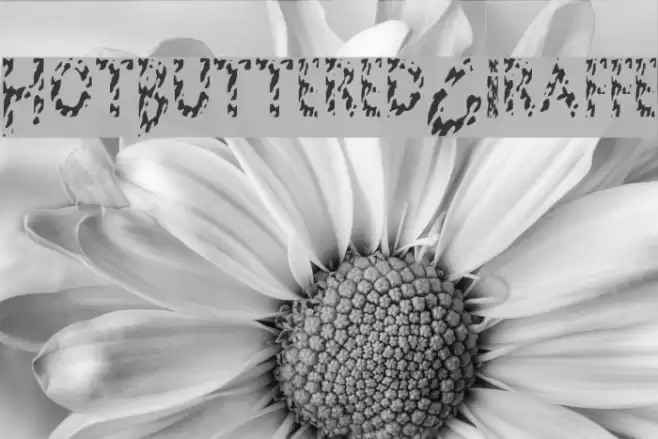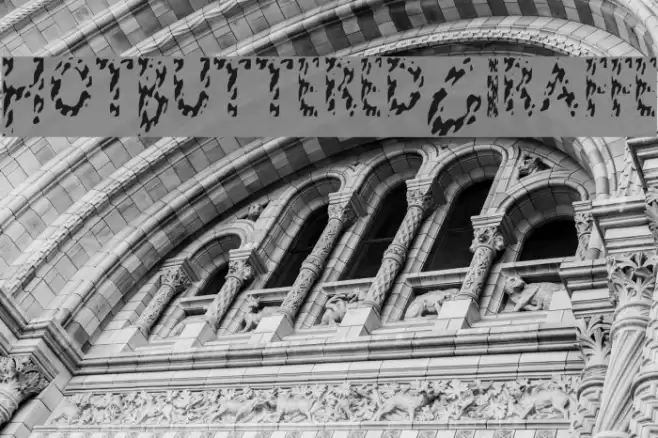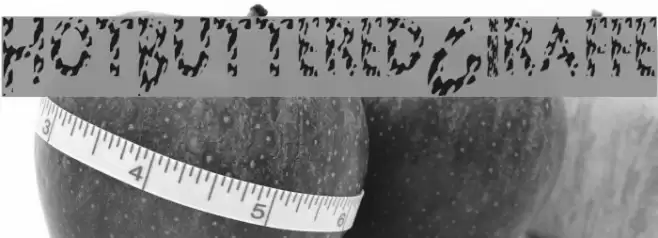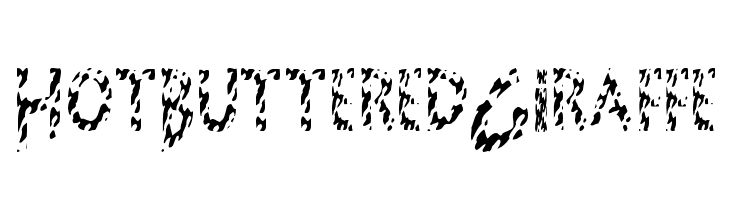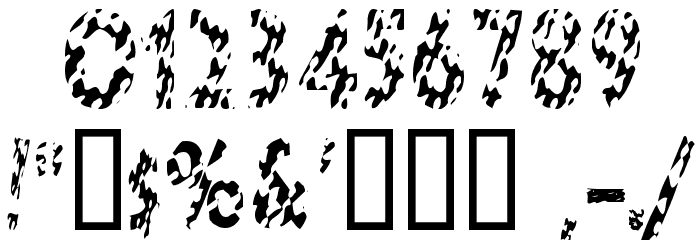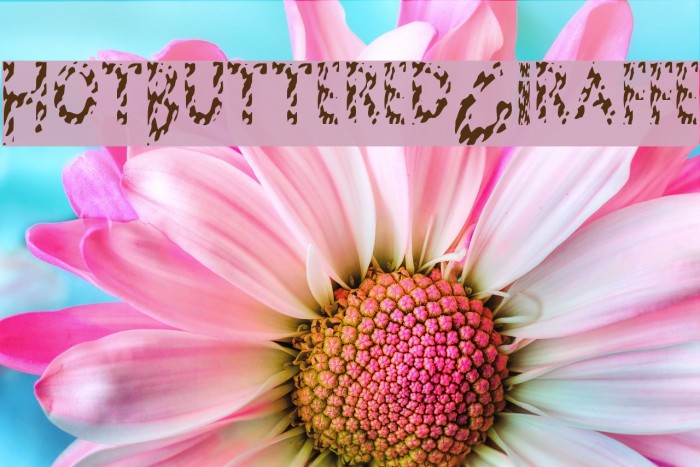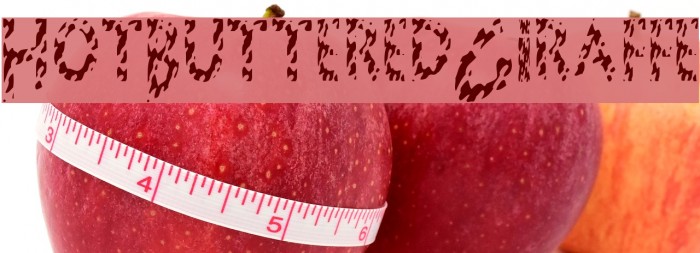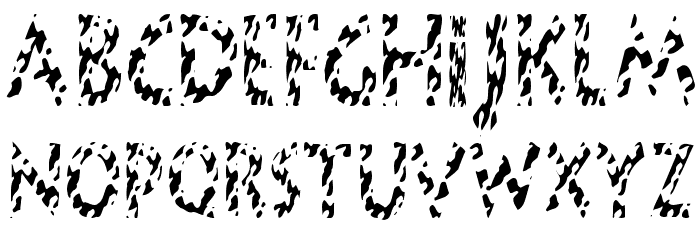
HotButteredGiraffe Font
HotButteredGiraffe Description
This font features a unique and playful design with a pattern reminiscent of animal prints, giving it a wild and dynamic appearance. The characters are bold and heavily stylized, with irregular edges that create a sense of movement and energy. The uppercase and lowercase letters maintain a consistent style, while the numbers and special characters integrate seamlessly into the overall design. This font is ideal for projects that require a standout, eye-catching typeface that conveys creativity and fun.
A bold, animal print-inspired font with a playful and dynamic style from Capitals fonts.